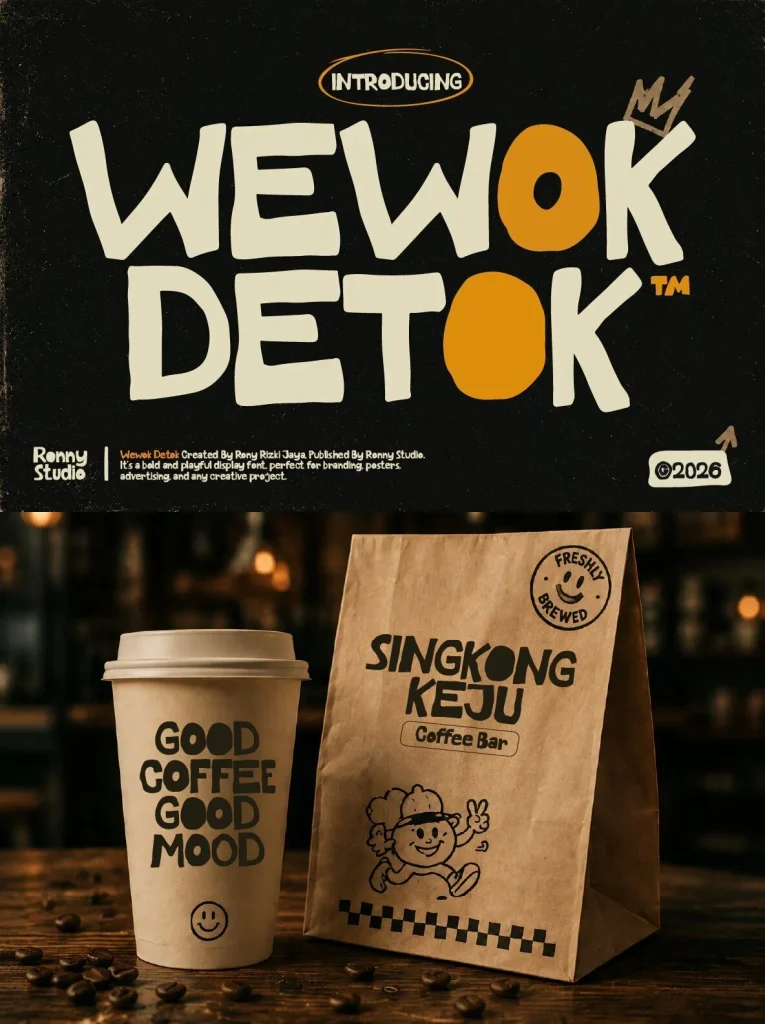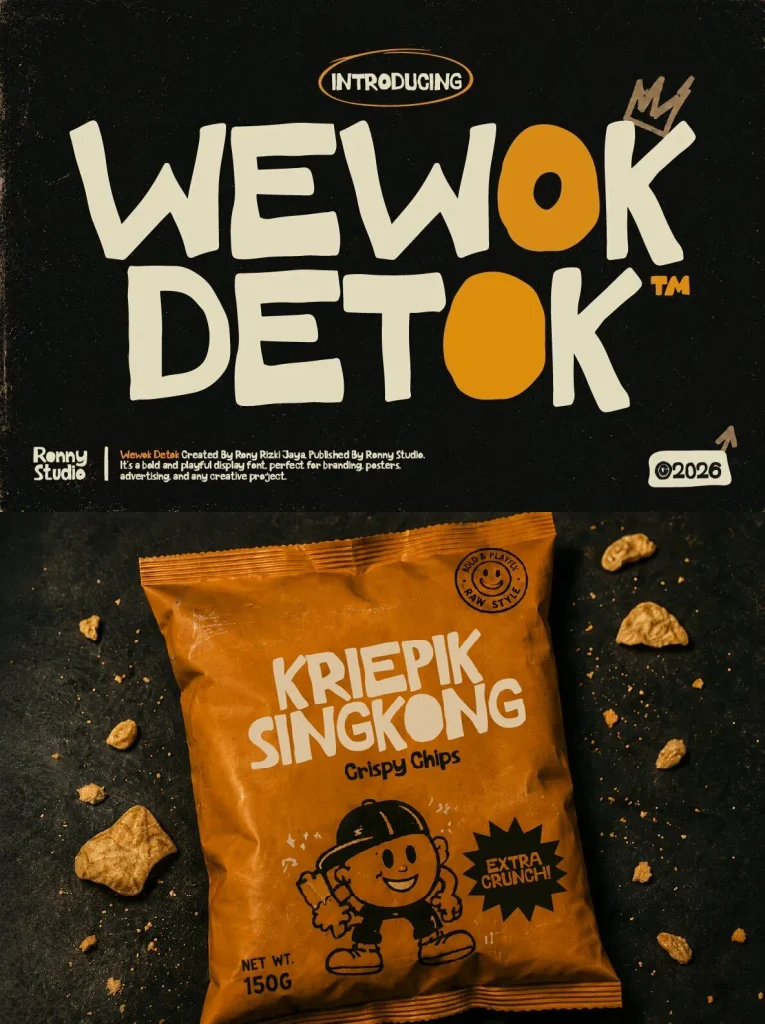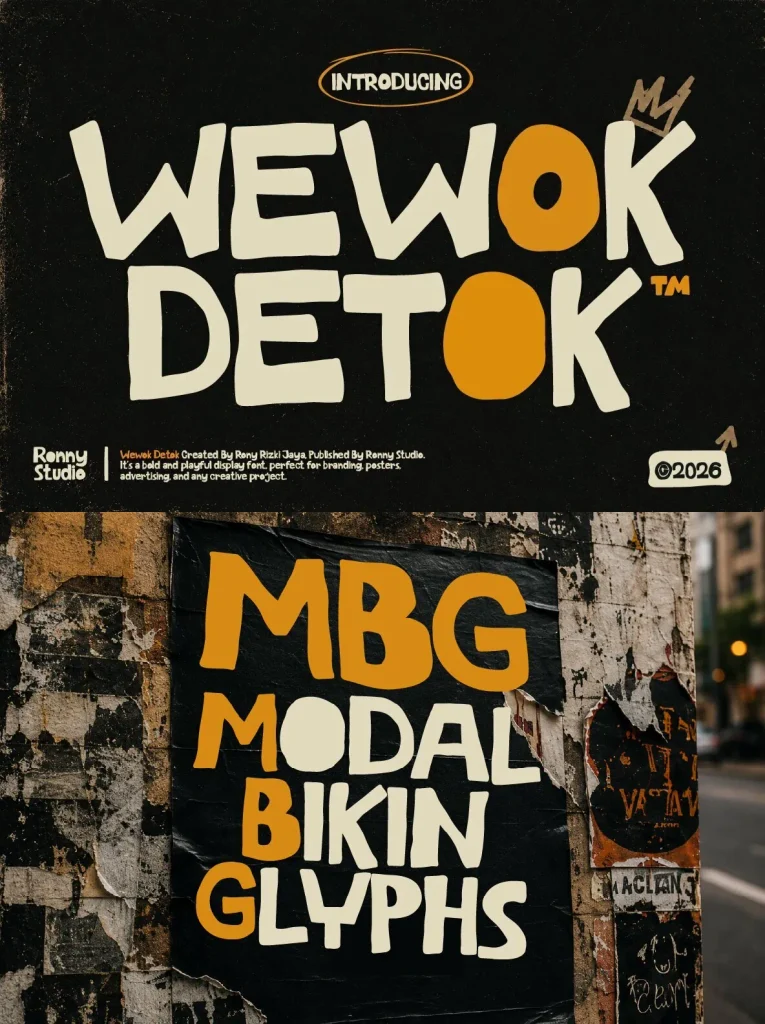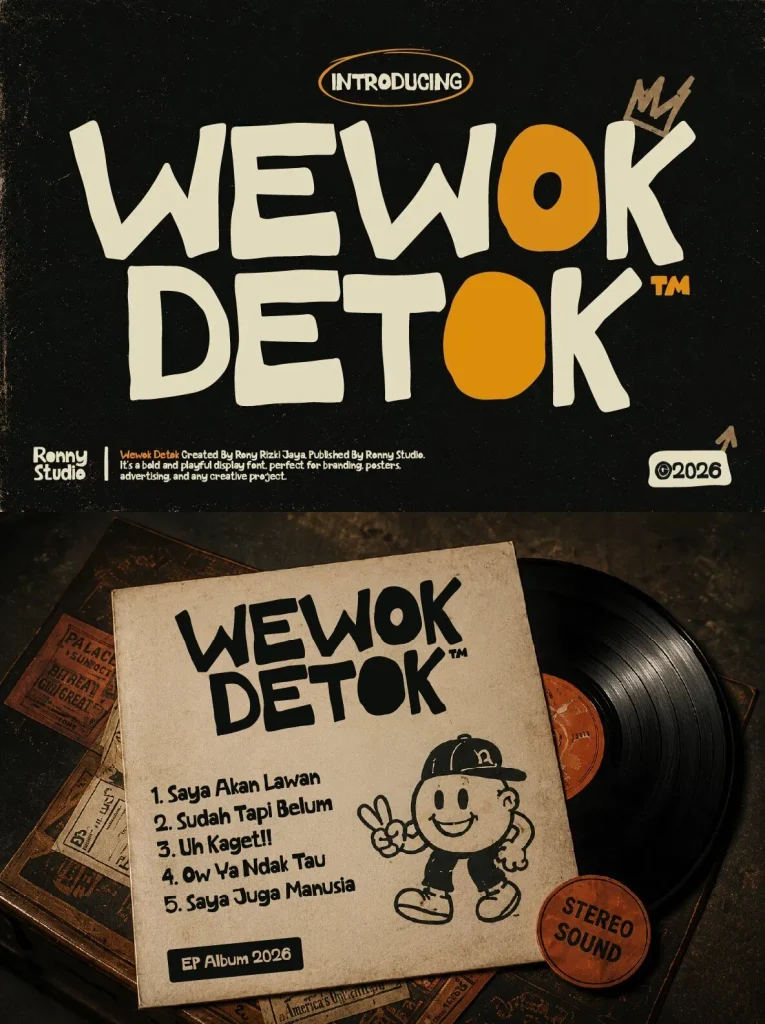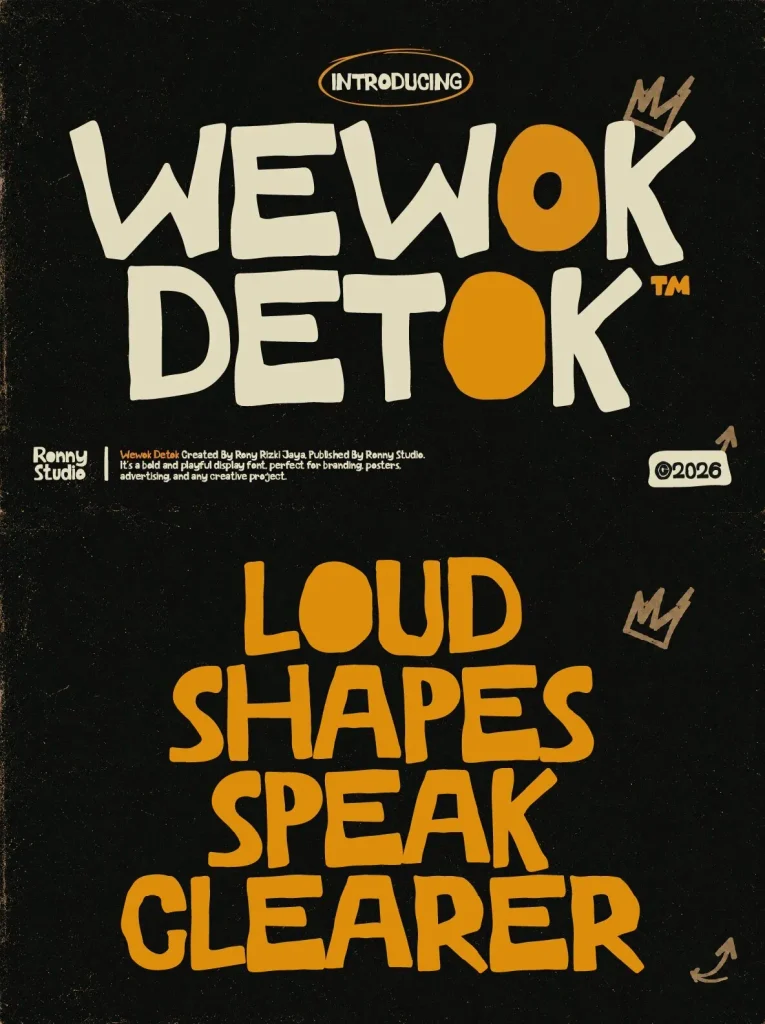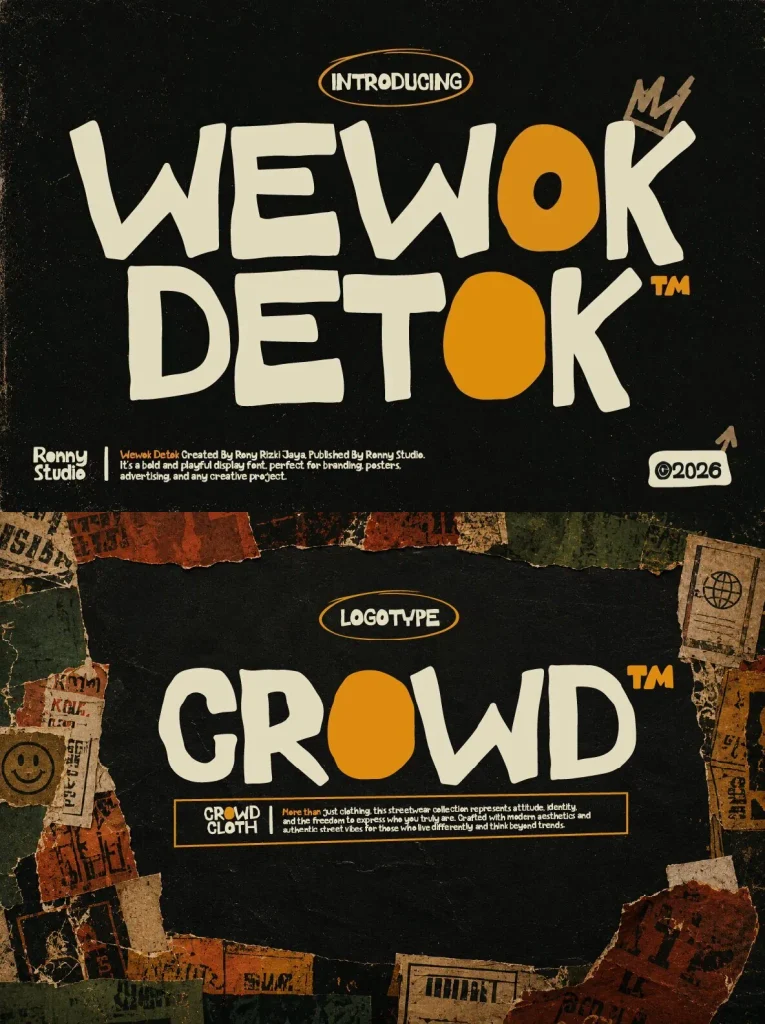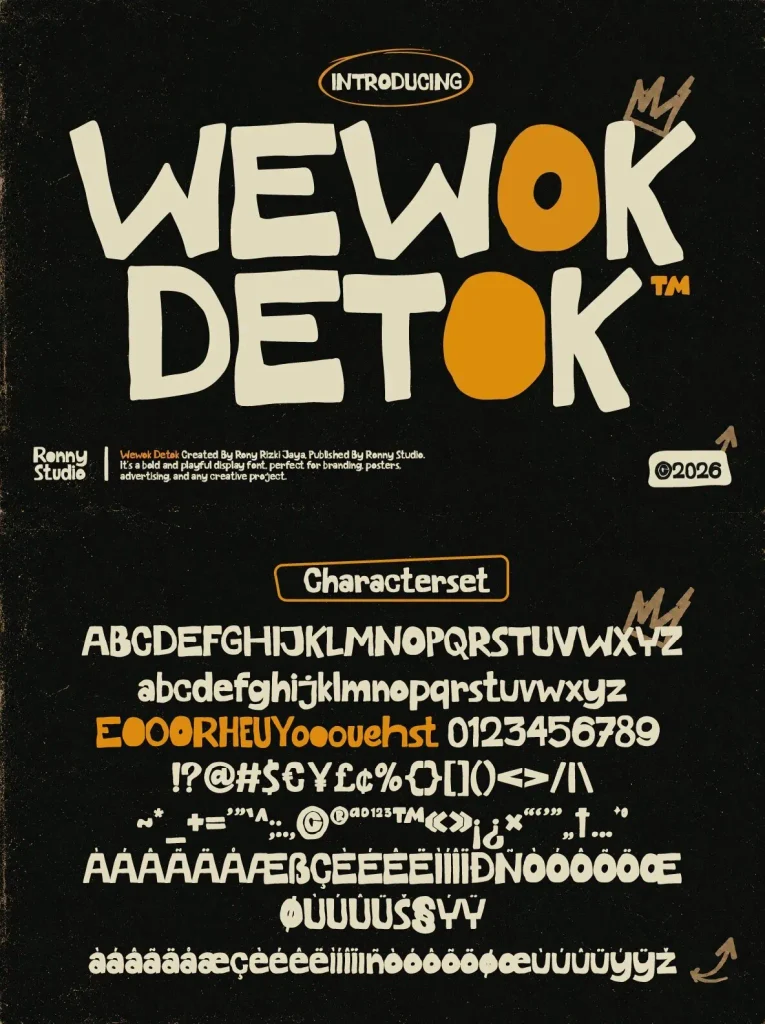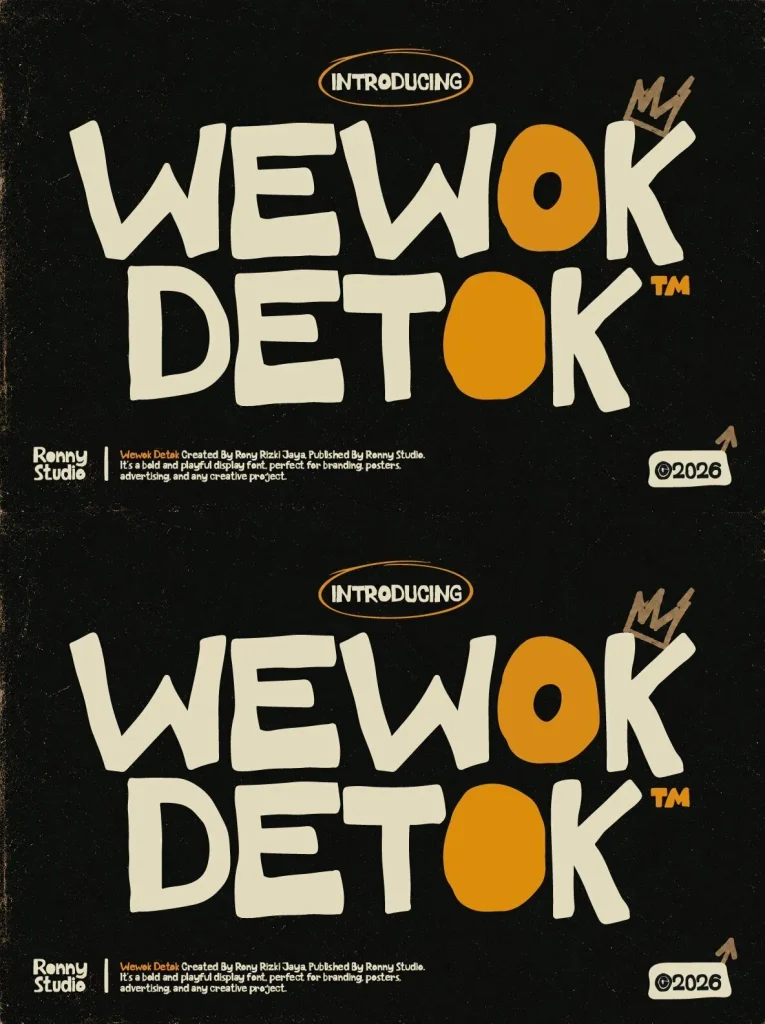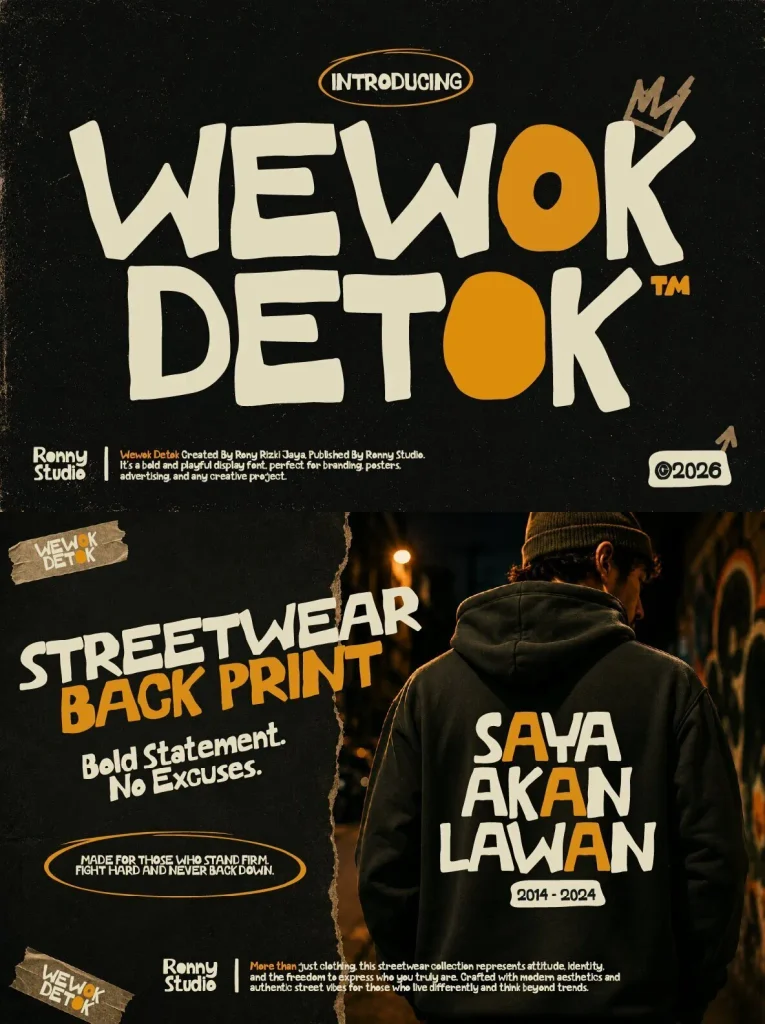
Wewok Detok — Bold Playful Impact
Wewok Detok is a playful bold display font built for designs that need immediate visual presence. Its hand-drawn characters give words a fun, energetic tone while keeping the strong weight needed for packaging, posters, branding, social media graphics, logos, headlines, and other creative projects.
This font suits work that calls for a unique, lively look without feeling overly polished or rigid. Use Wewok Detok for bold typography designs where personality matters, from stickers and album covers to brand visuals and promotional layouts.
Features
Uppercase & lowercase
Numbers & punctuation
Multilingual support
Perfect For
Packaging
Posters
Branding
Stickers
Social media
Album covers
Logos
Bold typography designs